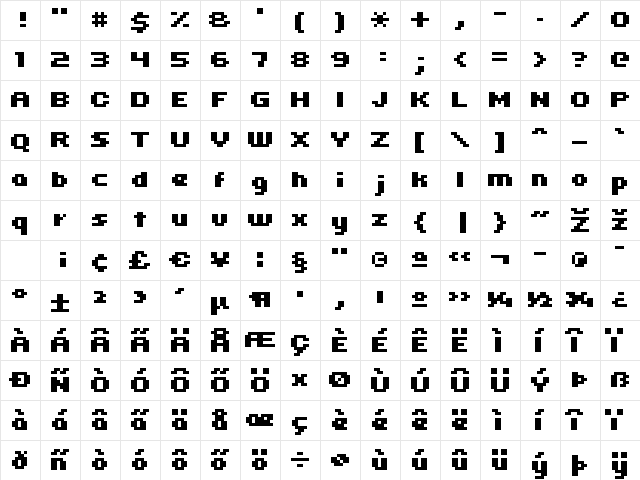
uni 05_63 Regular
| Designer | Craig Kroeger |
Design Context for uni 05_63 Typeface
uni 05_63 offers clean, dependable letterforms without strong stylistic allegiance, making it a practical choice for designers who need flexibility.